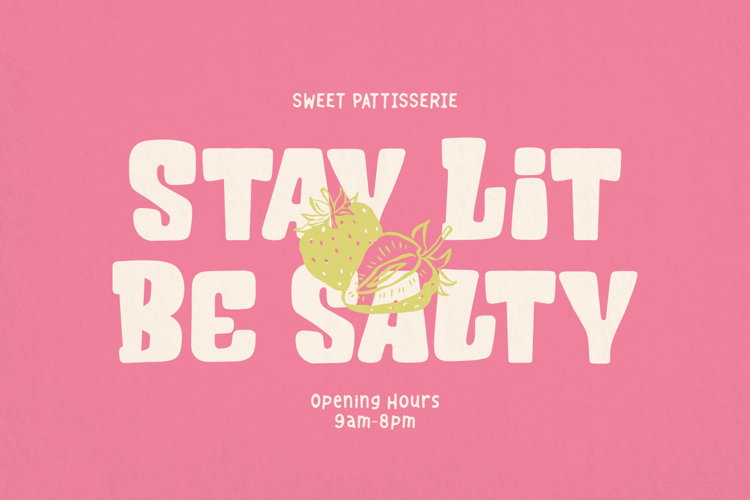
Chubby Cheeks Font
Solid Regular Style
Chubby Cheeks | Hand Drawn Display, is suitable for any projects such as: logos, branding projects, homeware designs, product packaging, mugs, quotes, posters, shopping bags, t-shirts, book covers, name card, invitation cards, greeting cards, label, photography, watermark, special events, and all your other lovely projects that need a Hand Drawn f taste.